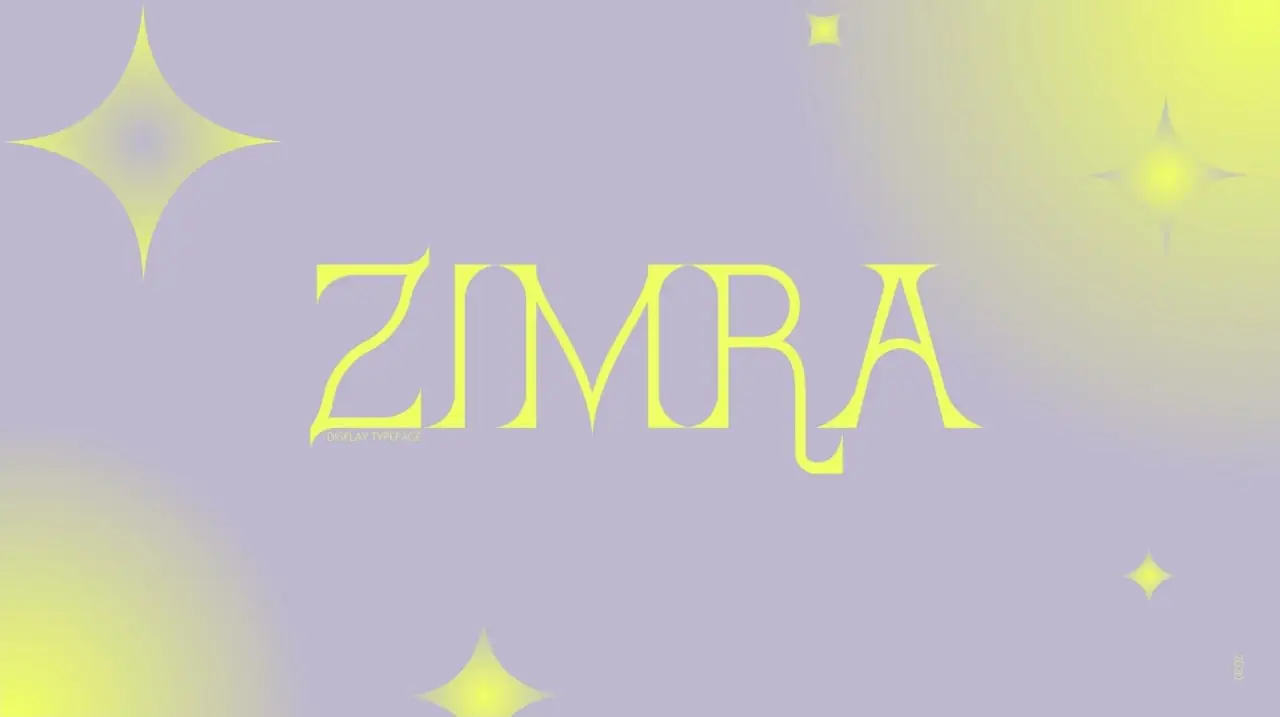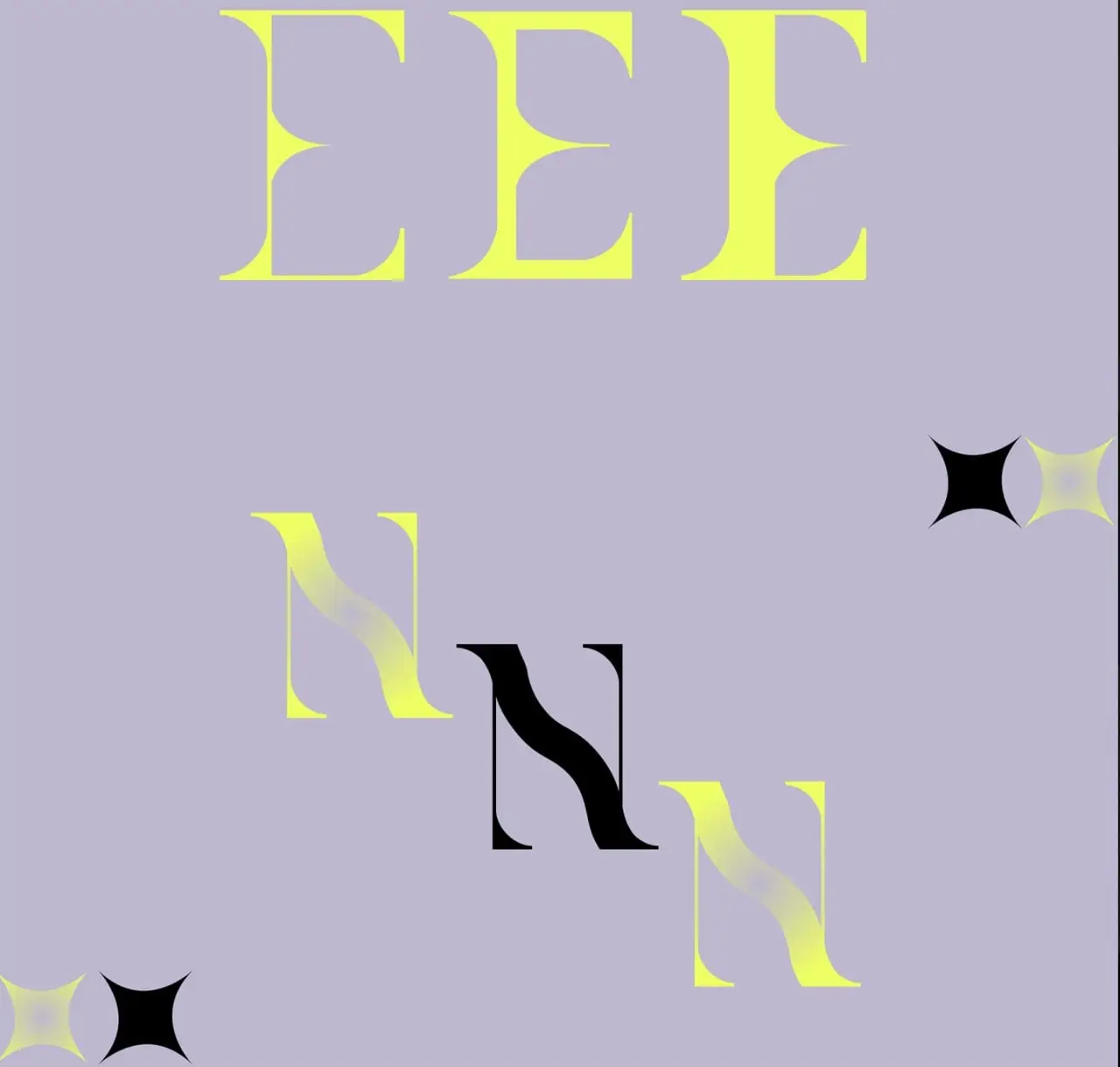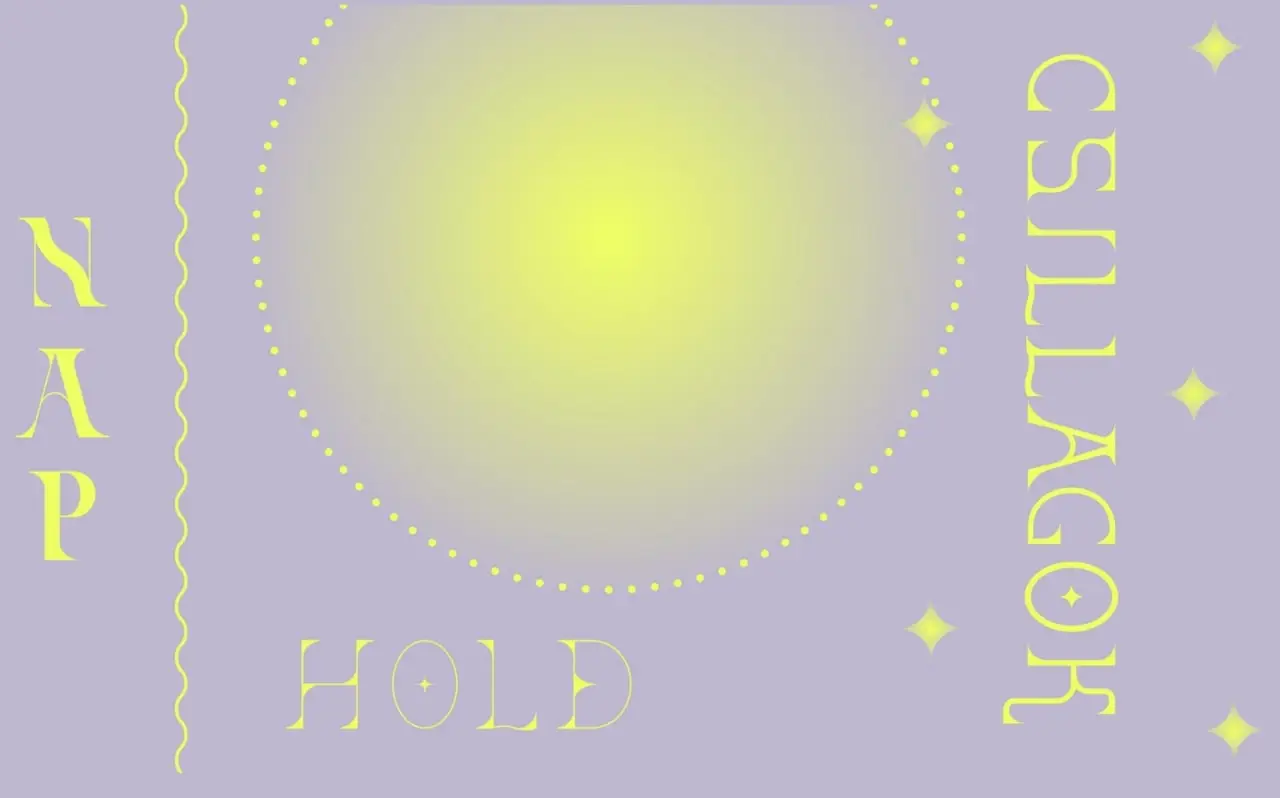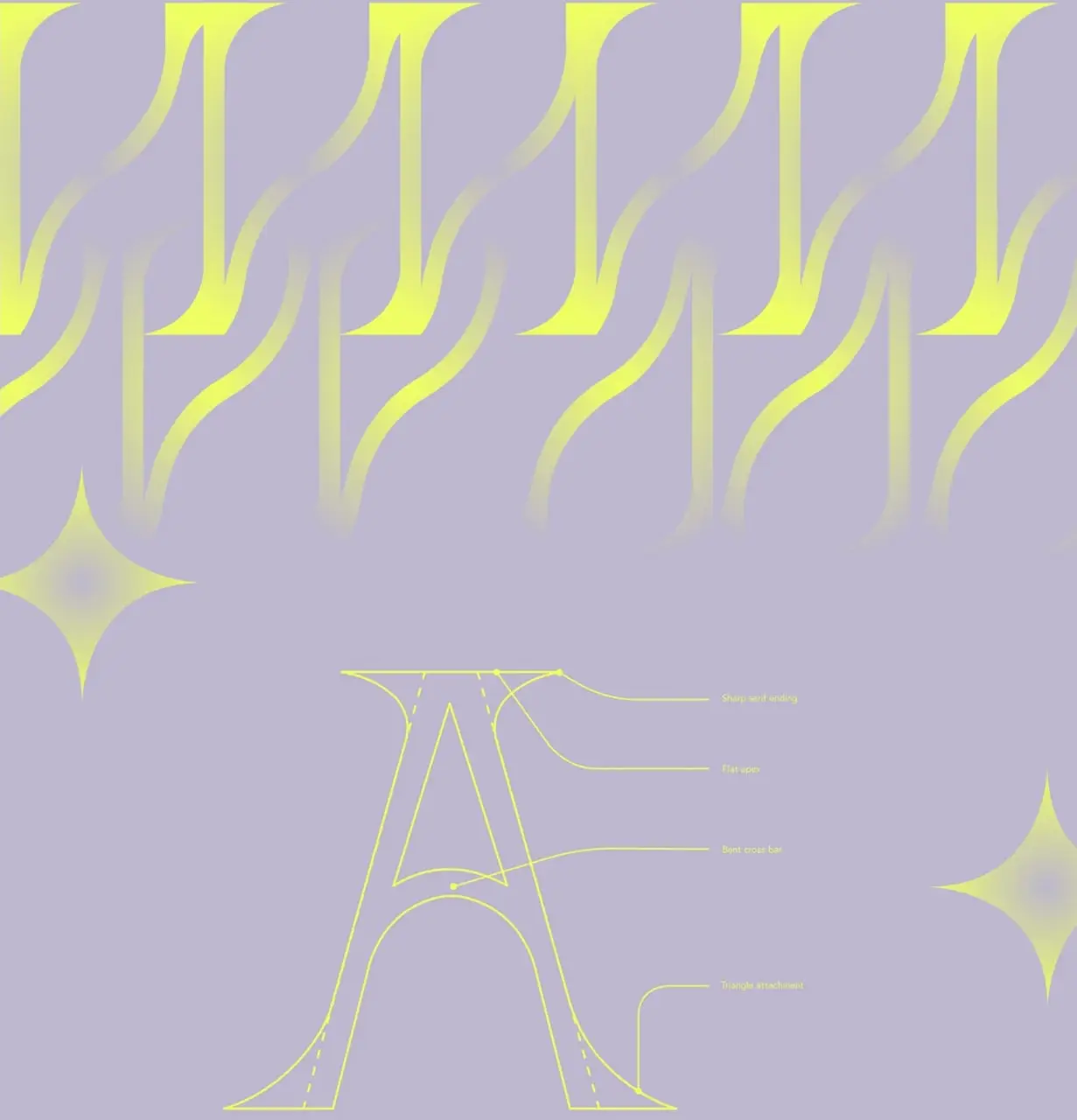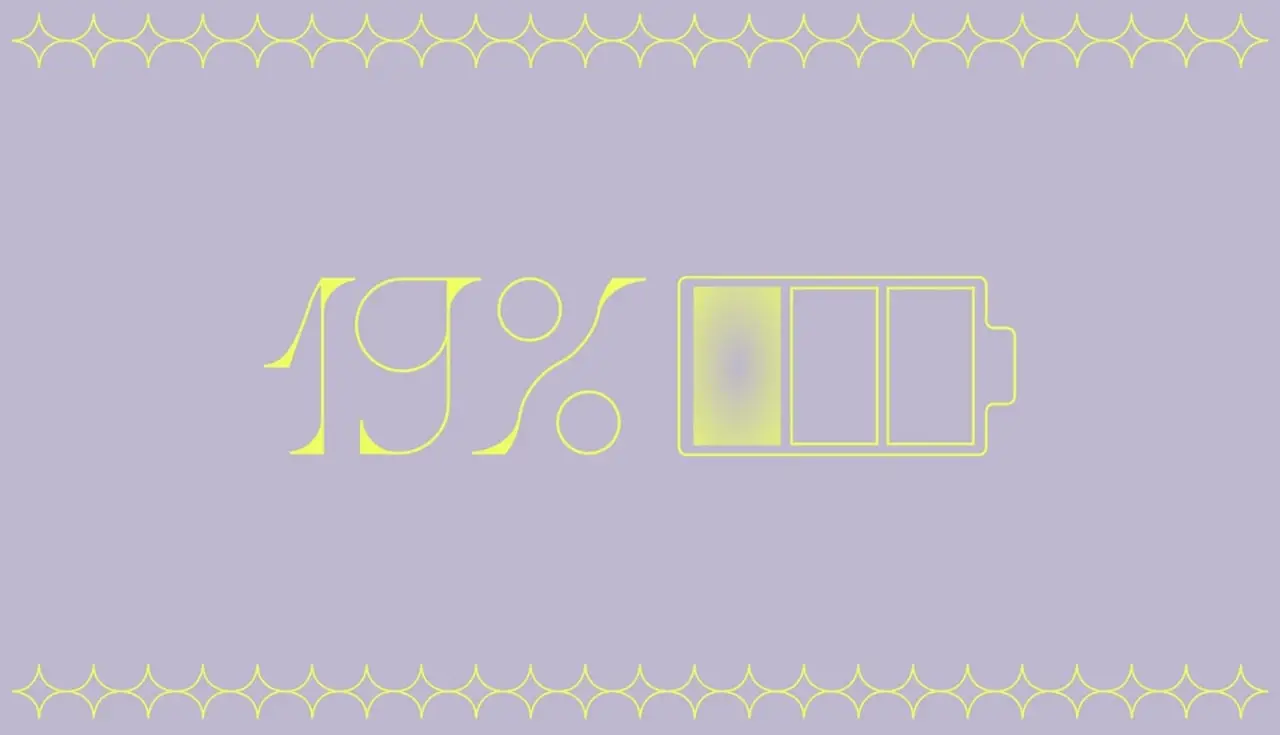
Zsófia Bányai-Zimra Typeface
The Zsófia Bányai-Zimra Typeface is a beautifully crafted font that combines elegance with versatility. This typeface features a range of styles and weights, making it suitable for various design applications.
• Multiple weights for flexibility in design
• Stylish and modern aesthetic
• Easy to read in various sizes
Ideal for branding, logos, web design, and print materials, the Zsófia Bányai-Zimra Typeface can elevate your projects with its unique character.